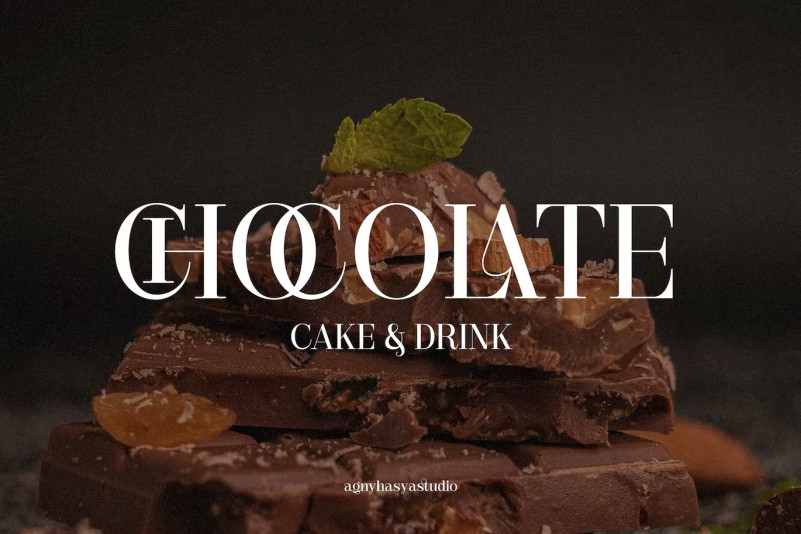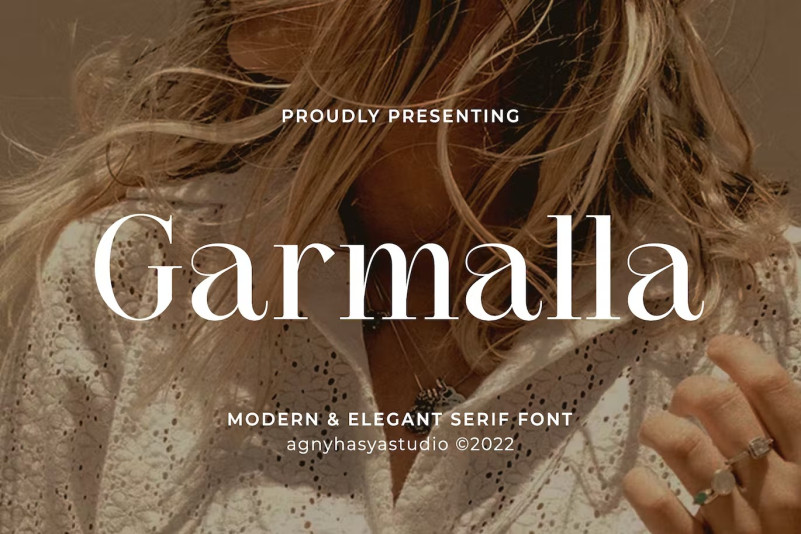
Garmalla Font
Garmalla Serif Font is a Modern & Elegant Display Serif Typeface Font created with glyph variations like alternates and ligatures. Combine it and make your perfect typography design!
Perfect for your design projects like logos, branding, advertising, product designs, stationery, magazine designs, book/cover title designs, photography, art quotes, wedding designs, fashion designs, special events, labels, product packaging, and more.